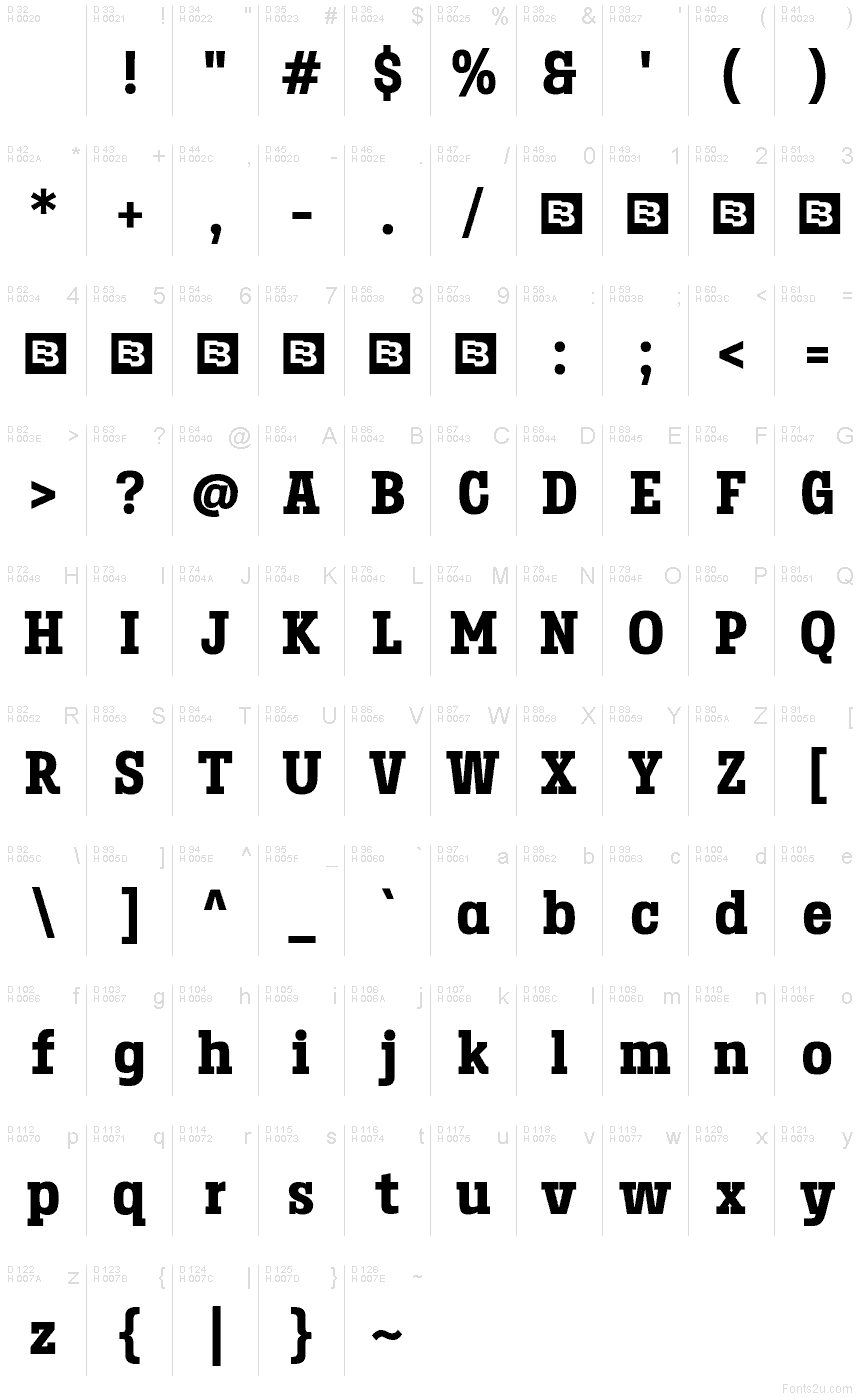
Birdwood Trial Black
Birdwood Black font by Eko Bimantara combines a classic feel with a strong presence. This bold serif font has an authoritative, robust appearance that embodies tradition and stability. It evokes the power of historic slab-serif typefaces within a contemporary type design that’s just flexible enough to cover most general needs.
Use Birdwood Black to design institutional branding, financial magazines, printed newspapers, blogging websites, business applications, industrial exhibitions/trade shows among other forms of artwork. Also ideal for editorial purposes such as book covers and body copy or magazine headlines if not entire contents.